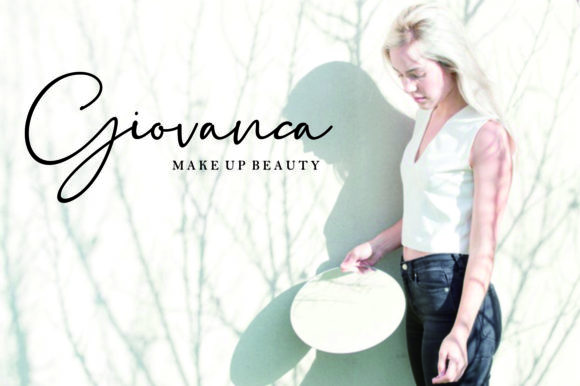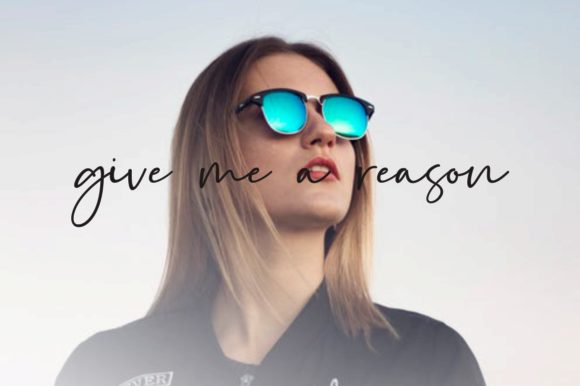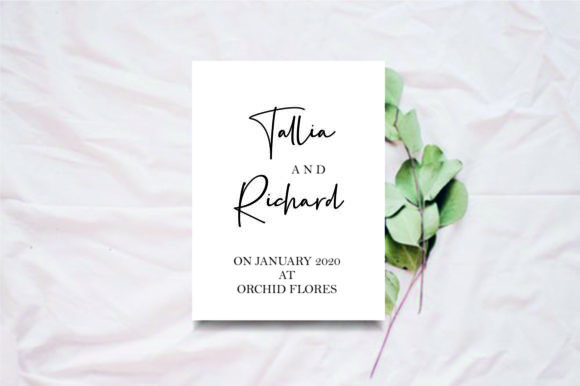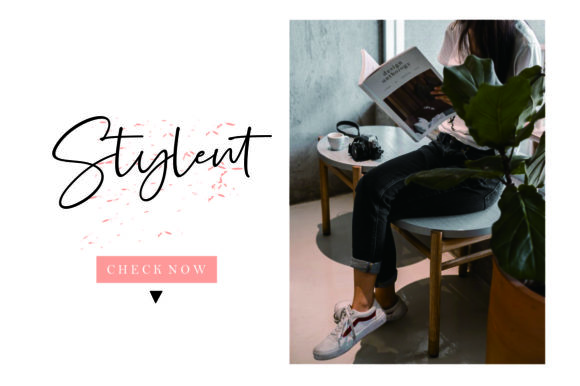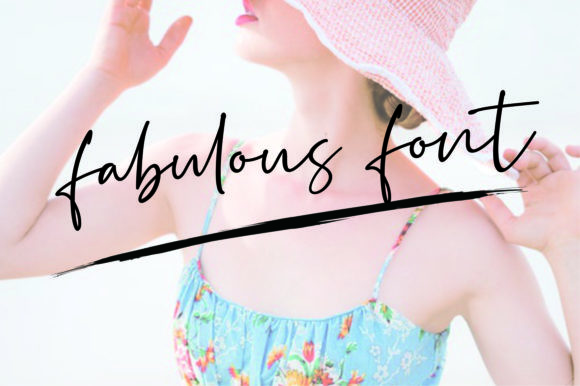
Silence Rocken Font
About Silence Rocken Font
Silence Rocken is a stunning handwritten font with a light and cool feel. It will effortlessly elevate any design project with its authentic charm!